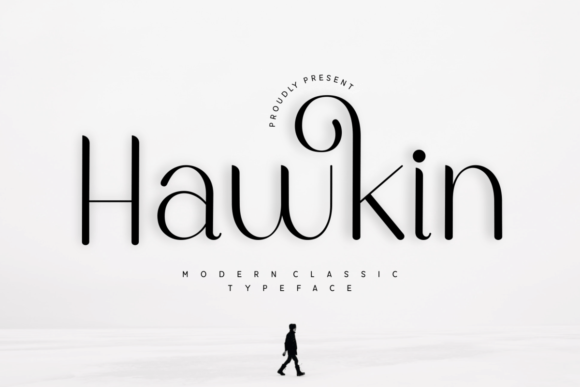
Unlock the Perfect Typographic Touch with Hawkin Font
Do you ever find yourself staring at a blank canvas, waiting for the perfect font to bring your design to life? For many of us, it’s that moment of clarity when everything falls into place – and that’s exactly what Hawkin Font is here to deliver.
This stunning sans serif font is designed to elevate your typography game, adding a touch of elegance and sophistication to any project. Whether you’re working on a fashion theme, web graphics, branding, or product labels, Hawkin Font is the perfect companion to help you create something truly special.
As a PUA-encoded font, you’ll have access to a world of glyphs and swashes, giving you the freedom to express your creativity without limits. With Hawkin Font, you can take your designs to the next level and make a lasting impression on your audience.
Hawkin Font Key Features
- Font Family: Hawkin is a sans-serif font family, designed for use in digital interfaces and publications.
- Character Set: The font family includes a comprehensive character set, covering Latin, Cyrillic, and Greek alphabets, as well as various punctuation marks and symbols.
- Unique Characteristics: Hawkin’s distinctive design features a clean and modern aesthetic, with a focus on legibility and readability, making it an ideal choice for digital interfaces, publications, and branding materials.
Hawkin Font Review
Overall, I found the Hawkin Font to be a unique and creative addition to any design project. ✨ One of the standout features of this font is its versatility, making it suitable for a wide range of applications, from headlines to body text. Its modern and sleek design also makes it a great choice for any project looking to make a statement.
- ✨ Great for headlines and titles due to its bold and striking appearance.
- ✨ Suitable for digital and print media due to its high-resolution capabilities.
- ✨ The font’s modern design makes it a great choice for trendy and contemporary projects.
However, I did encounter a few limitations with the Hawkin Font. ⚠️ One of the main concerns is its readability, particularly at smaller font sizes. The font’s intricate design can sometimes make it difficult to distinguish between letters, especially for those with visual impairments.
- ⚠️ Readability issues at smaller font sizes.
- ⚠️ May not be suitable for projects requiring a large amount of text due to its unique design.
Overall, the Hawkin Font is a great choice for designers looking to add a touch of modernity and creativity to their projects. While it may have its limitations, its unique design and versatility make it a valuable addition to any design toolkit.
Tips for Getting the Most Out of Hawkin Font
For best results, use Hawkin Font in conjunction with bold or italic styles to create emphasis and visual interest.
Hawkin Font is ideal for:
- Designing logos and branding materials.
- Creating eye-catching headings and titles.
- Adding a touch of sophistication to digital documents.
2. Playfair Display
Playfair Display is a high-end, elegant serif font that is ideal for titles, headings, and logos. It is best used in situations where a sophisticated and luxurious tone is desired.
The Hawkin Font is designed to be highly legible at various font sizes. However, for optimal readability, we recommend using font sizes between 12px and 24px for body text, and 36px or larger for headings.